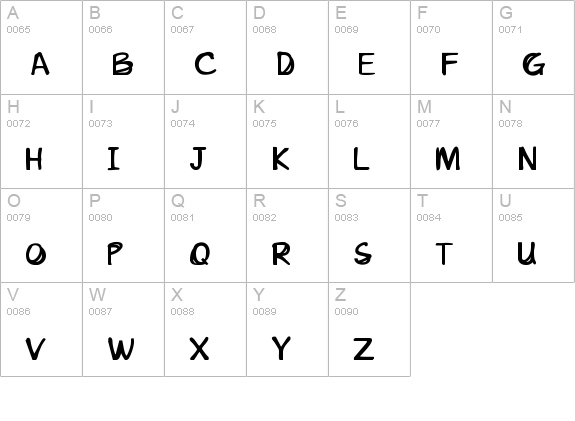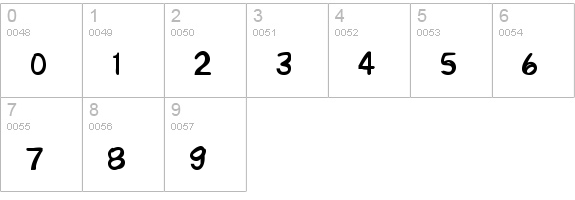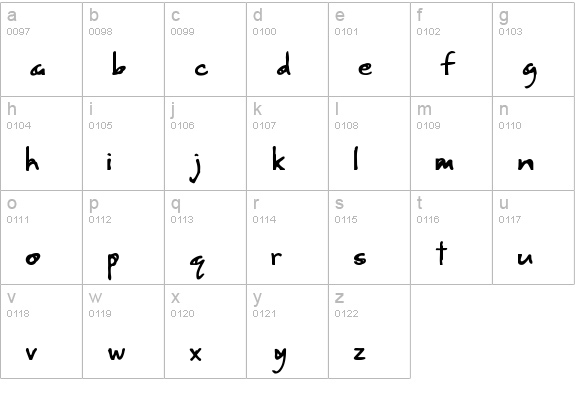
Ribbit Font Details
Introducing Ribbit, a whimsical and playful font that will bring a touch of charm to your designs. With its curvy and bouncy letterforms, Ribbit exudes a friendly and inviting vibe that is perfect for adding a dash of fun to any project. This delightful font is not only visually appealing but also incredibly versatile. Its clean and legible style makes it suitable for a wide range of applications, from logo designs and branding projects to greeting cards and social media graphics. Whether you're creating a quirky poster or a cute invitation, Ribbit will effortlessly elevate your design with its unique personality. One of the best things about Ribbit is that it is absolutely free! That's right, this fantastic font is freely available to download at FontsMarket.com. Now you can enjoy the benefits of a high-quality font without breaking the bank. So why wait? Dive into the world of Ribbit and let your creativity leap to new heights. With its extensive character set, Ribbit supports multiple languages, making it a great choice for international projects. Its smooth curves and consistent spacing ensure a harmonious and polished appearance across different devices and platforms. Don't settle for ordinary fonts when you can have Ribbit. Its captivating style and generous availability will make it a go-to choice for designers, artists, and creatives alike. So go ahead and make a splash with Ribbit – the free font that will take your designs to the next level.